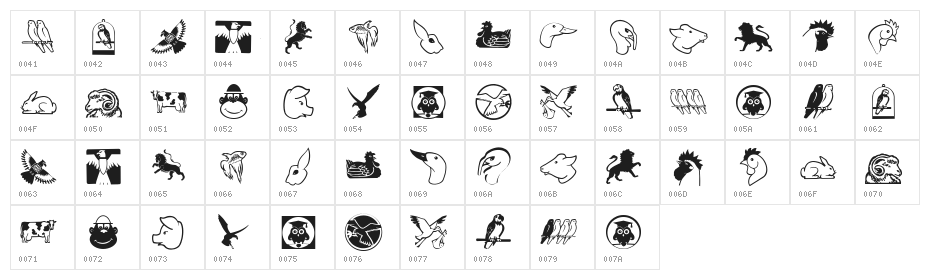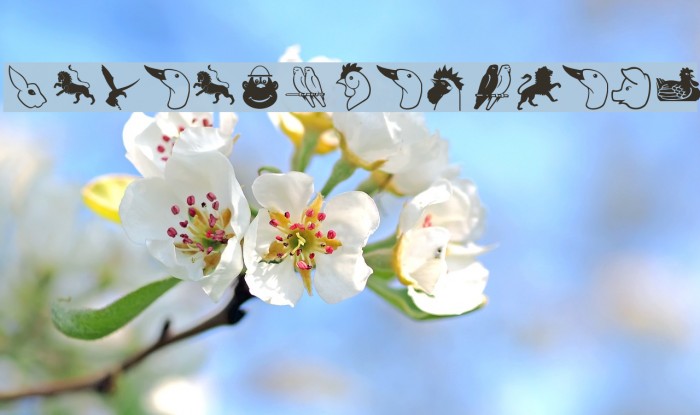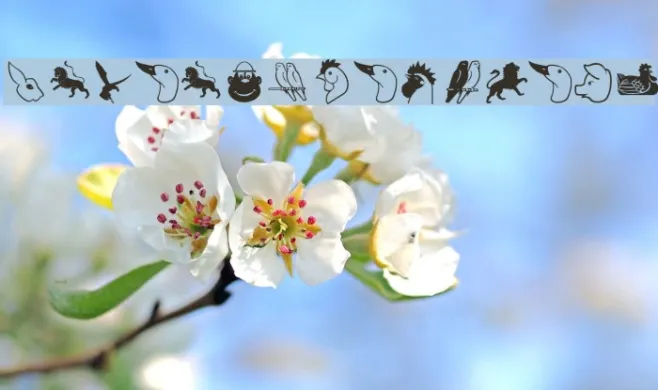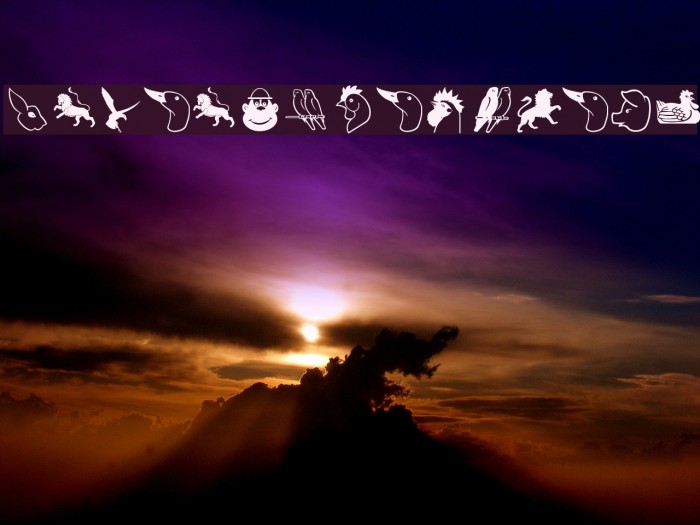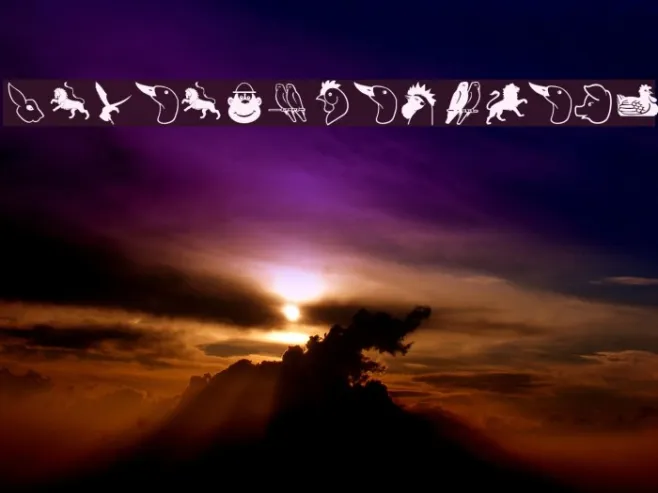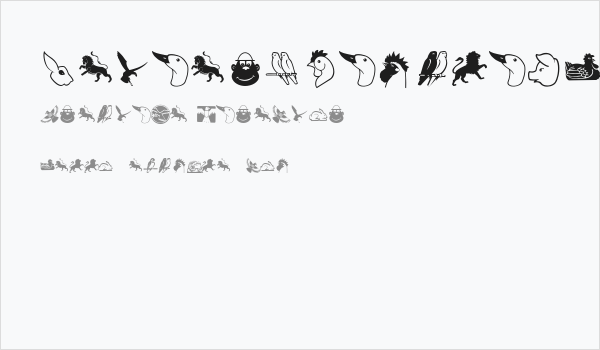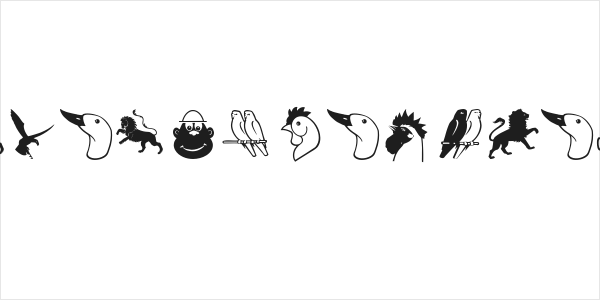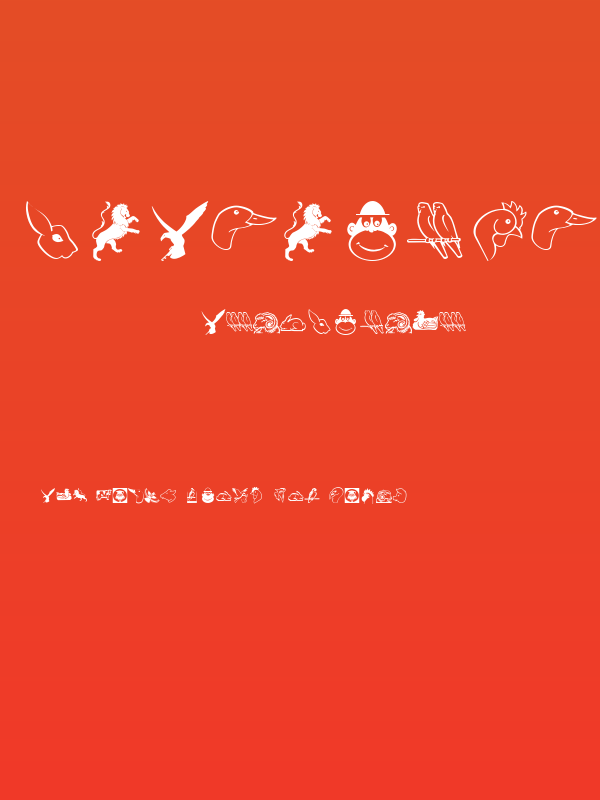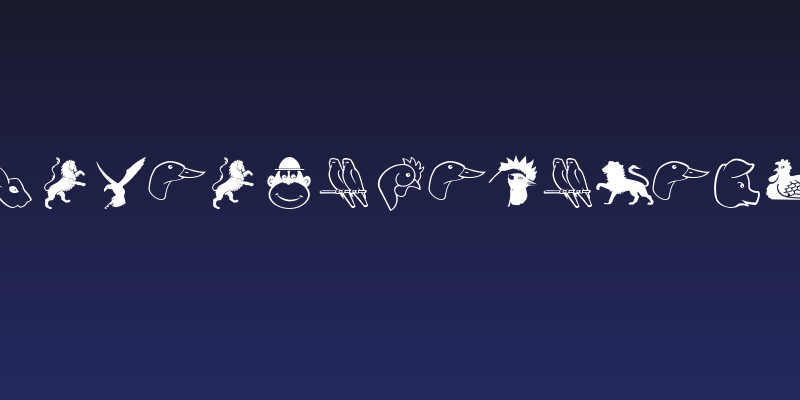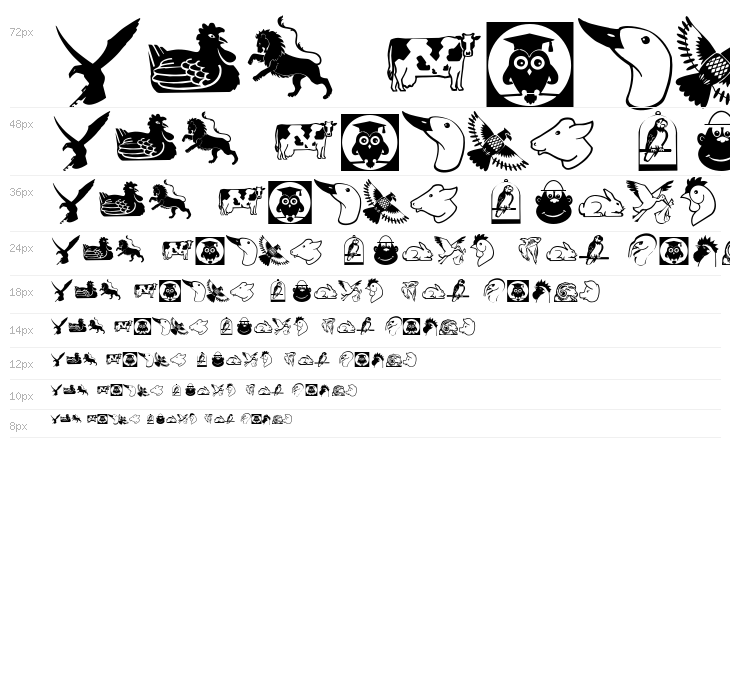
GetierAnimalish Font
GetierAnimalish Description
A decorative dingbat font featuring a variety of stylized animal and bird illustrations, including both line art and filled silhouettes. The glyphs are playful and cartoon-like, with a mix of circular and square backgrounds for some characters, and a consistent use of bold outlines.
Overall StyleDecorative, Playful
Use CaseIcons, Decorative elements, Themed graphics
Proposed ProjectsChildrenÒ€ℒs books, educational materials, animal-themed posters, scrapbooking, invitations, playful branding.